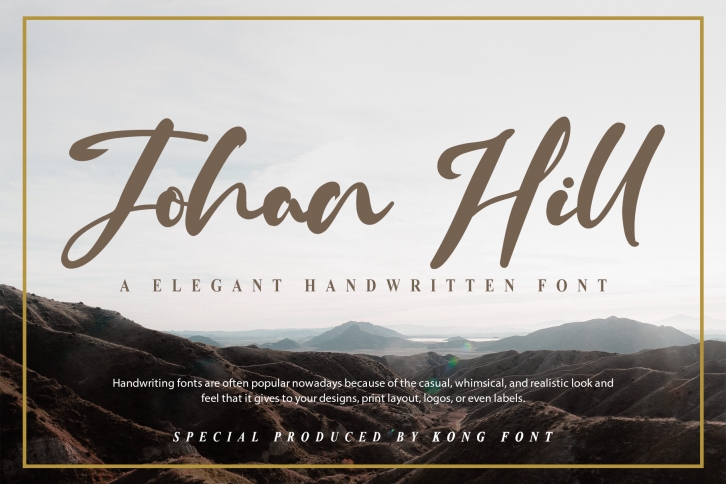
Introducing our New Font, very suitable as to make adorable invitation for wedding, birthday, special day. A collection of letters and numbers suitable your projects also great for Logotype, Branding Design, Logo Design, Digital Lettering Arts, T-Shirt/Apparel, Poster, Magazine, Signs, Advertising Design, and also perfect for your other projects branding.